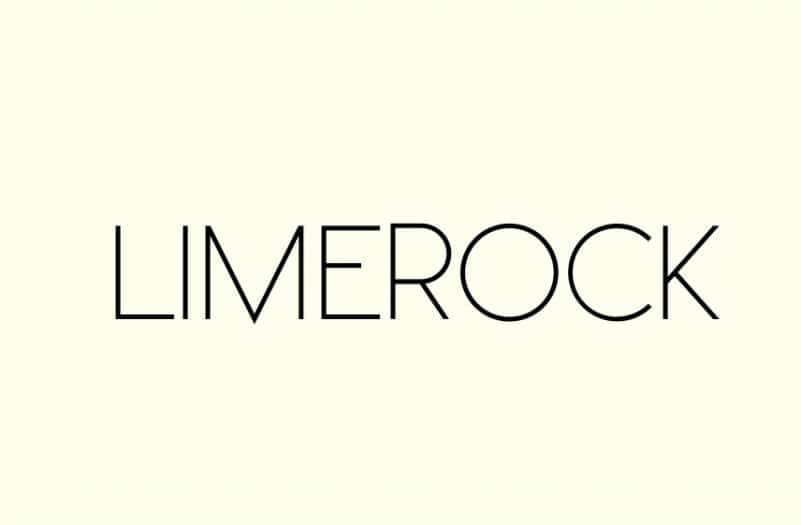
Limerock Font
Introducing Limerock Sans Serif Font – A humanist sans-serif typeface created by ECFC. This sophisticated sans serif is perfect for your next design project. This font Includes 6 versions as well as uppercase, lowercase, numbers, symbols and multilingual character sets.